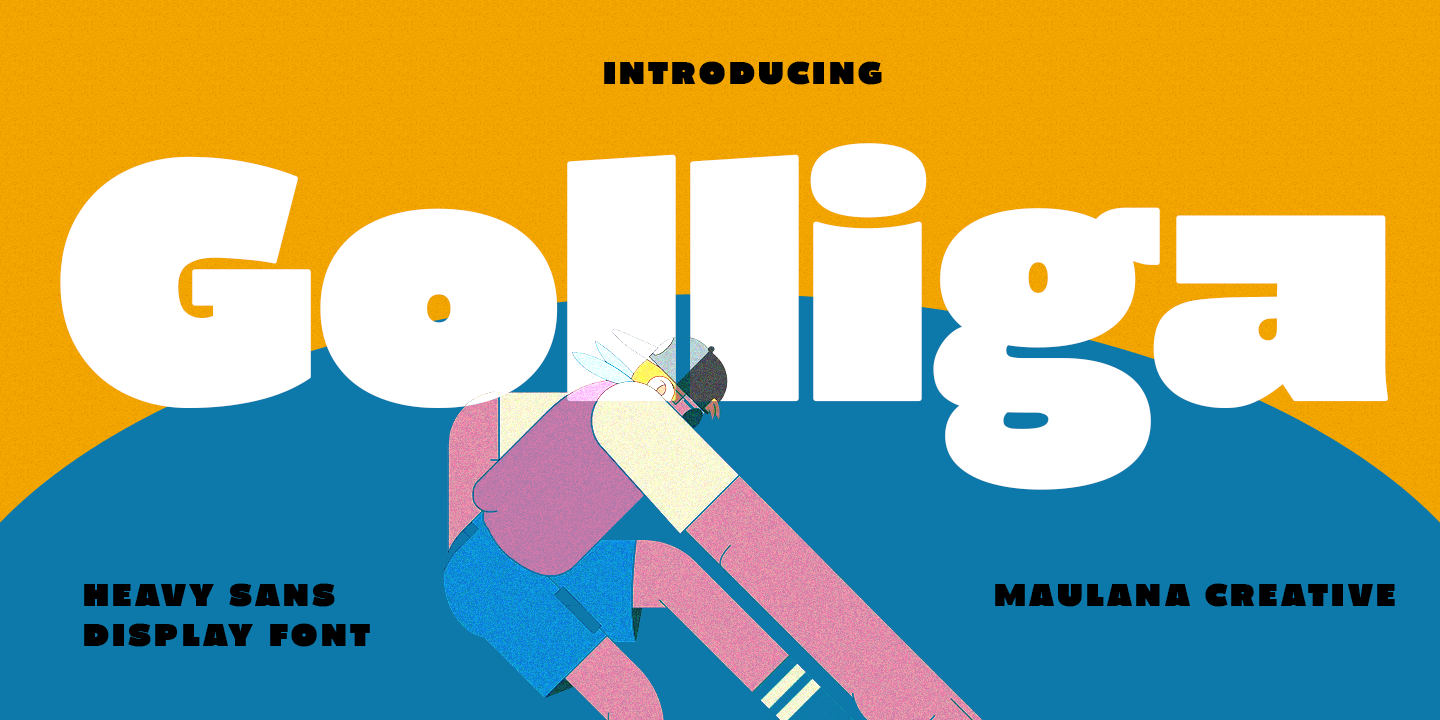
Looking for a bold and edgy typeface that exudes power and attitude? MC Golliga Font Free Download is perfect for posters, album covers, streetwear branding, and any project that demands a strong, rebellious look. Its aggressive strokes and sharp angles create a striking visual impact that grabs attention instantly.
Whether you’re designing bold logos, edgy flyers, or dynamic social media content, MC Golliga Font Free Download brings intensity and character to your designs.